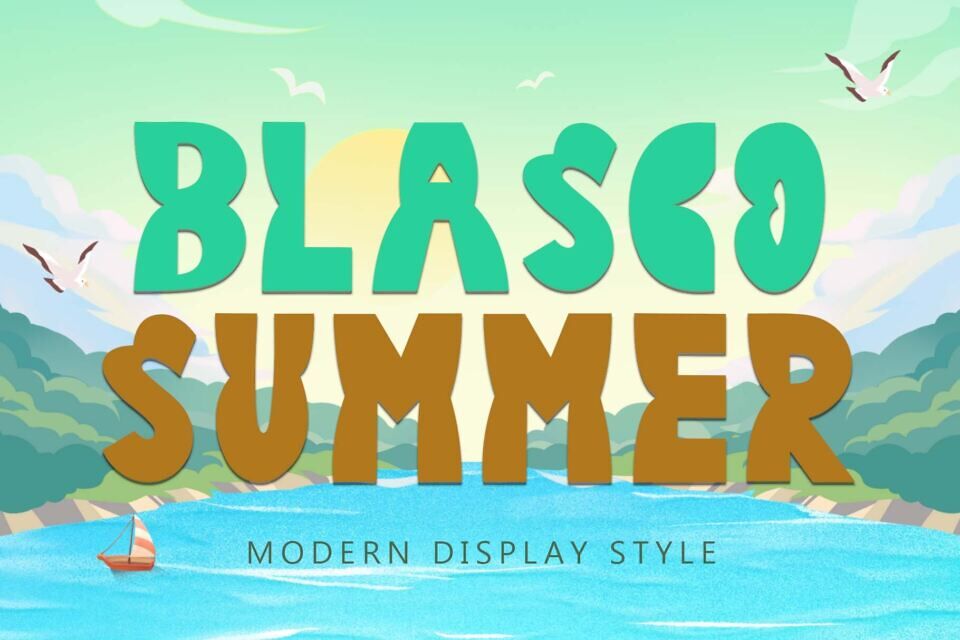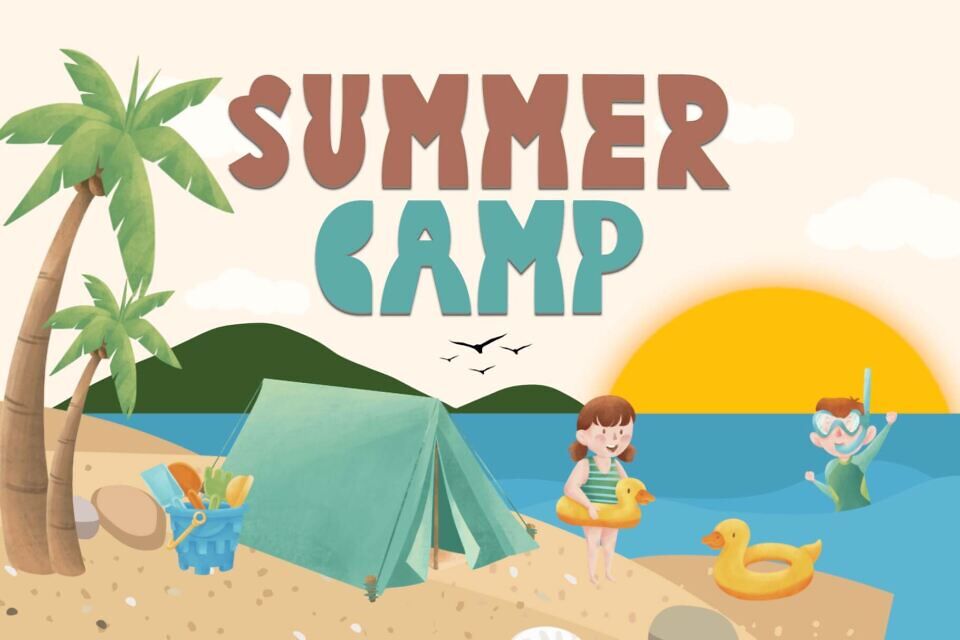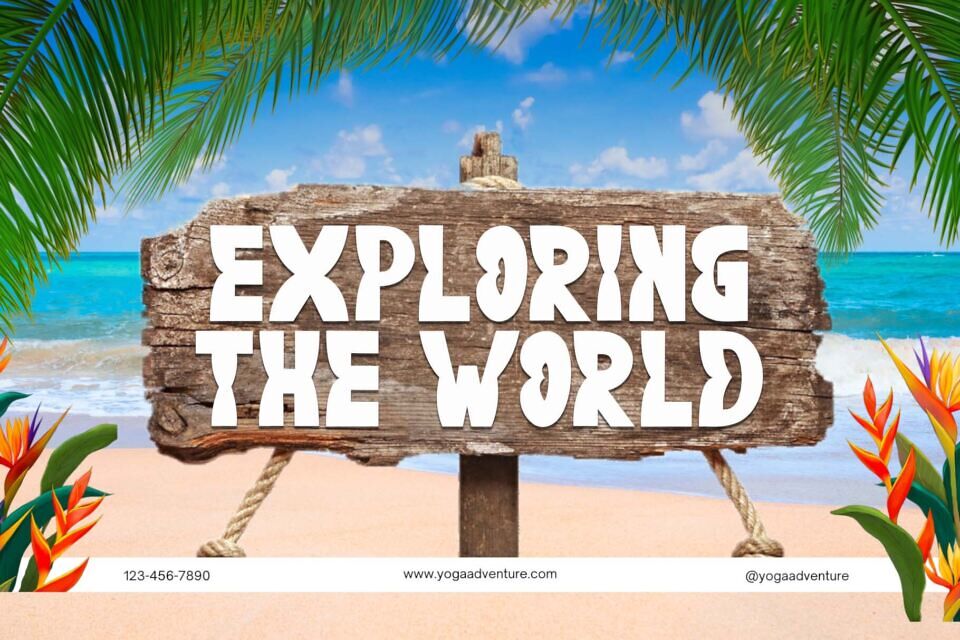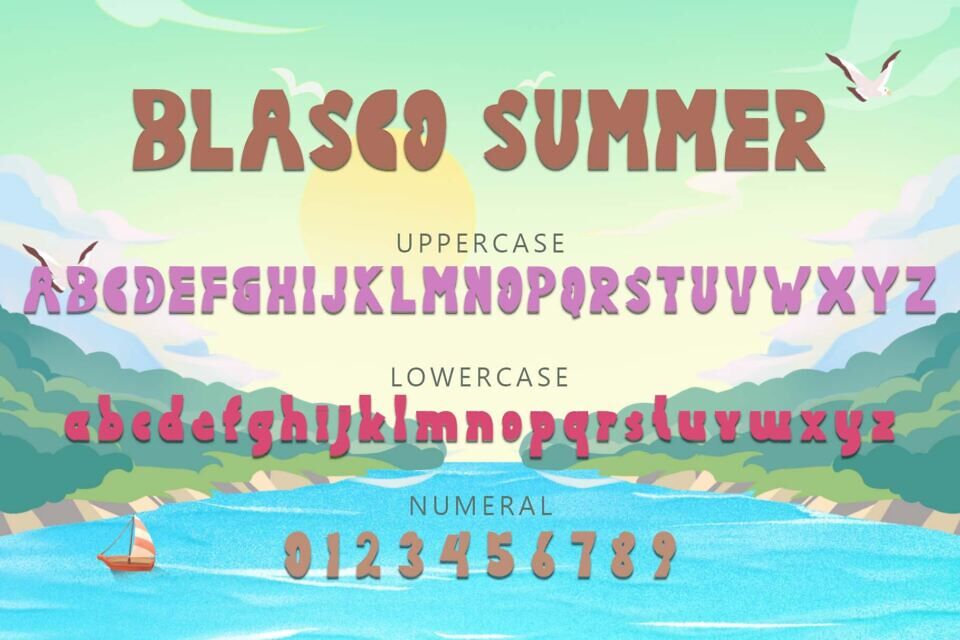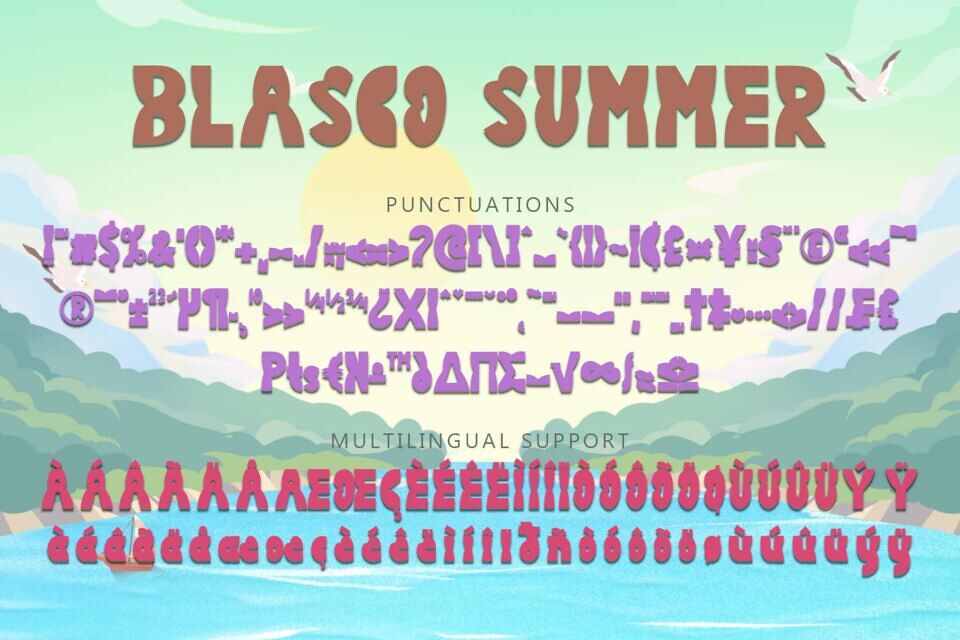
Blasco Summer is a unique and elegant display font. This font is equipped with uppercase, lowercase, numerals, punctuations and multilingual support.
It is very suitable for banners, posters, prints, branding, stickers, summer, holiday, spring, camping, holiday, vacations and others.